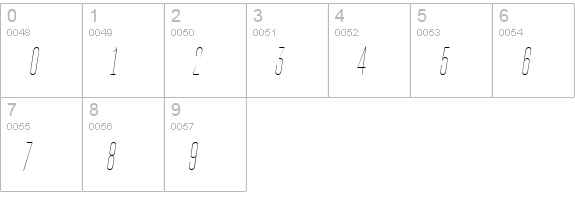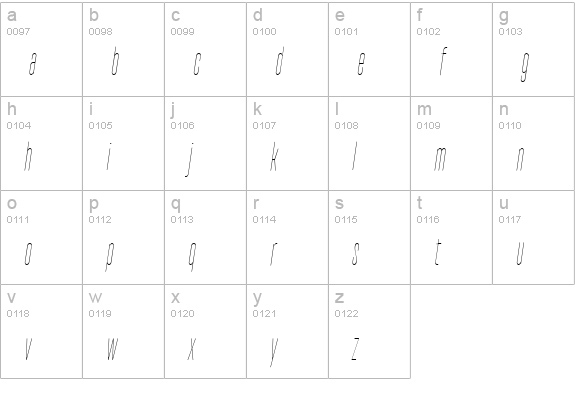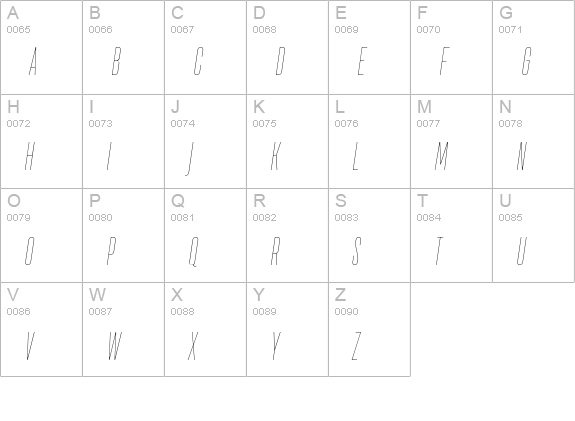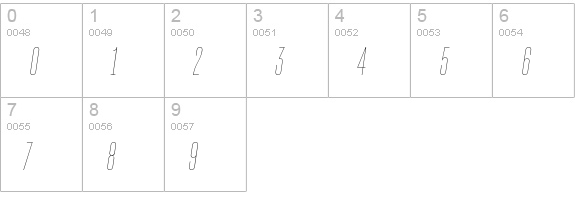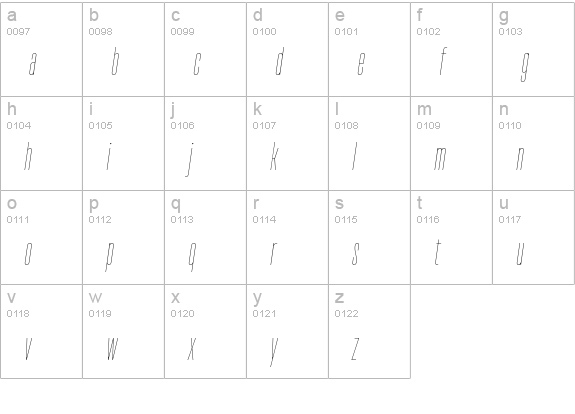
TT Bluescreens Round Thin Ita is a delicate, low-contrast variant in the TT typeface family \xE2\x80\x94 well suited to fashion editorial, minimal branding, and high-contrast display.
TT Bluescreens Round Thin Ita is a sleek and modern font that exudes sophistication and style. Its thin, rounded letterforms give off a contemporary and minimalist vibe that is perfect for a wide range of design projects. Whether you are working on a branding project, a website design, or a print advertisement, this font will add a touch of elegance and finesse to your work. Not only does TT Bluescreens Round Thin Ita look great, but it is also incredibly versatile and easy to read. The clean lines and simple shapes make it a great choice for both headings and body text. Plus, its italicized style adds a touch of flair and personality to any design. Best of all, TT Bluescreens Round Thin Ita is available for free download at FontsMarket.com. This means that you can start using this stylish font in your projects right away without having to worry about breaking the bank. So why wait? Download TT Bluescreens Round Thin Ita today and take your designs to the next level!